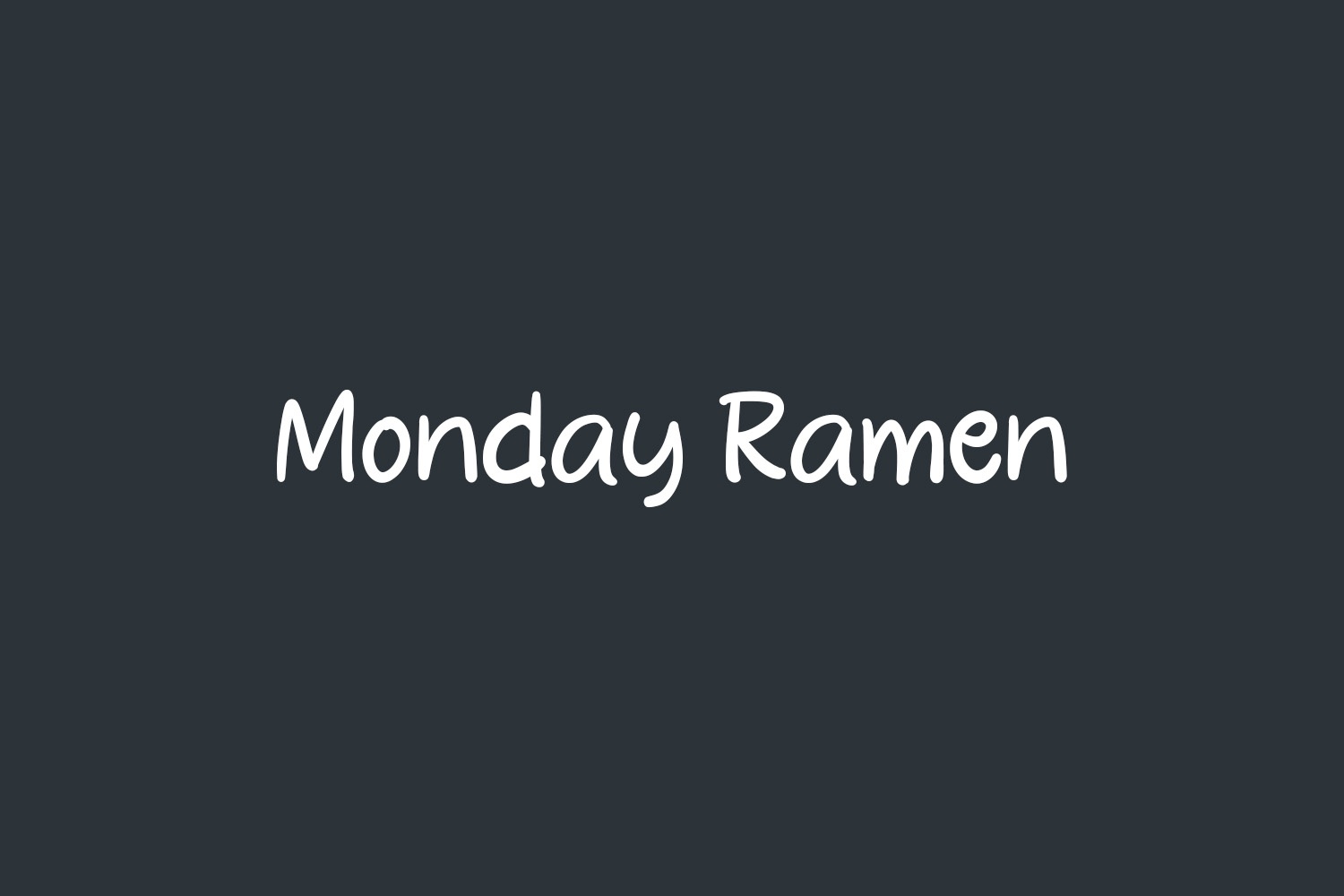
Monday Ramen Free Font is a contemporary and endearing handwritten font, ideal for enhancing various design projects like posters, logos, magazines, book covers, banners, and beyond! Acquire this extraordinary font to infuse charm into your designs. Its versatility seamlessly adapts to a wide spectrum of projects, elevating your creative concepts and making them distinctly prominent. Monday Ramen Free Font is free for personal or commercial use.